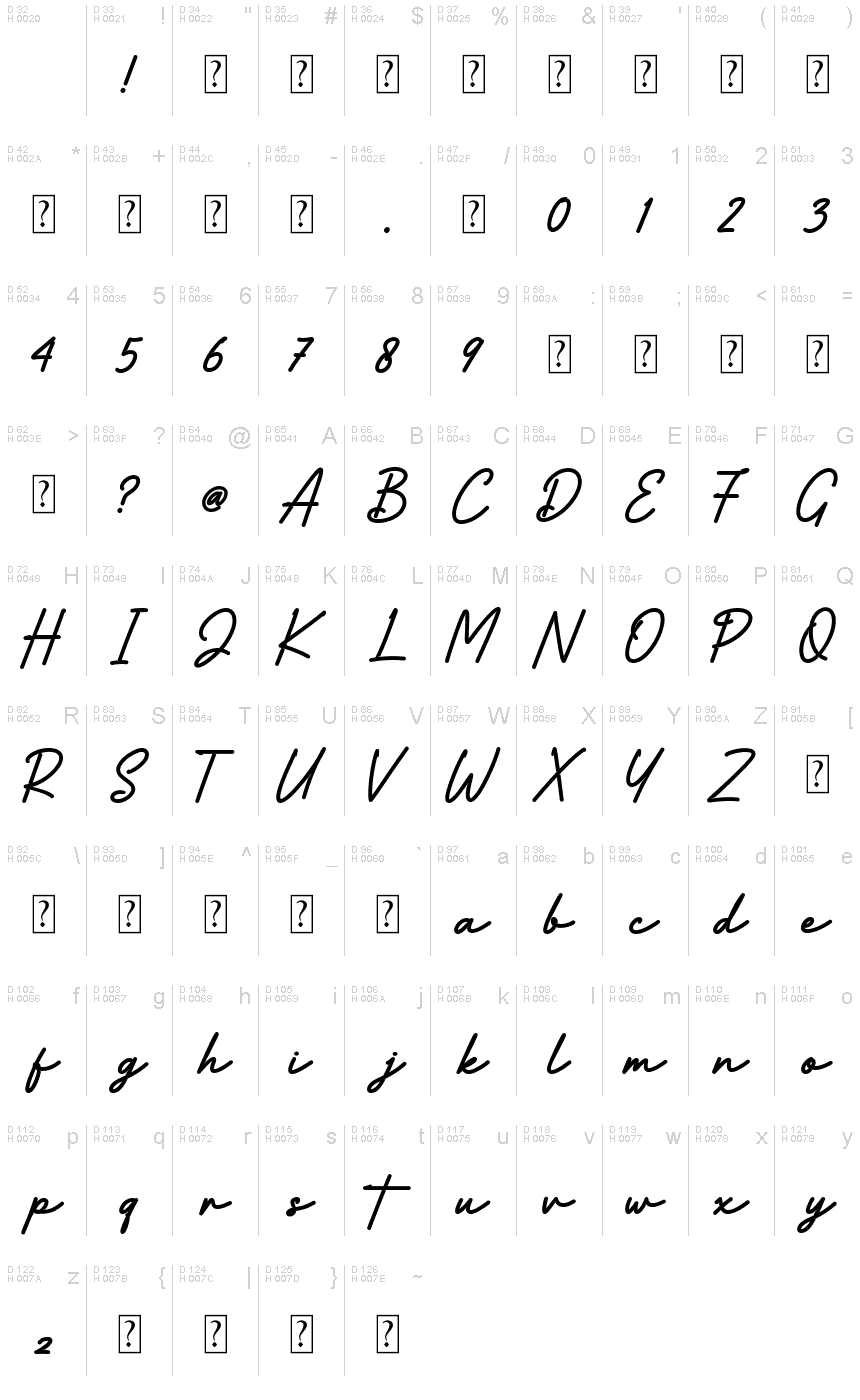
Bartolomeo Demo Bold
Bartolomeo Bold font is a lovely handwritten font designed by Ariya Works Studio.
Bartolomeo is a modern script font, has an elegant design with a handwritten feel, but with a thicker size.
This fonts will make your design look exclusive, simple and authentic.
It offers support for all English characters, some opentype features (alternate, contextual alt, ligature and swashes), several characters in different languages and standard punctuation included.
Bartolomeo is designed specifically for signature logos, logotype,handwritting, branding, advertising, clothing, and manymore.